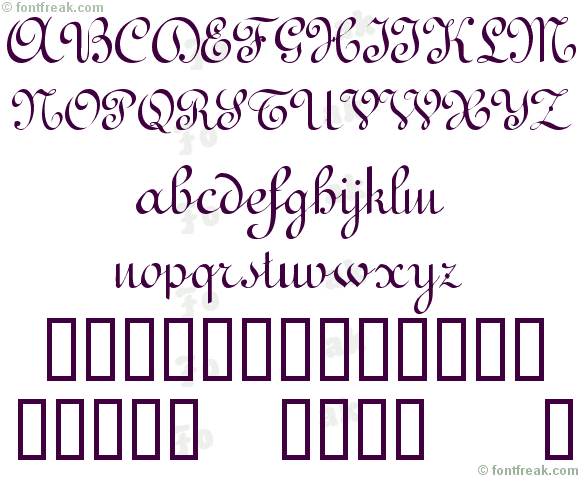
About Terpsichore
The Terpsichore font, designed by The Scriptorium in 1994, embodies an elegant script style that beautifully captures a sense of movement and grace. This decorative font features flowing, cursive-like strokes that evoke a sense of artistry and sophistication. With its moderate stroke weight and subtle contrast, Terpsichore balances readability with an artistic flair, making it a versatile choice for various design applications. The fluid lines and graceful curves create an inviting aesthetic, while the generous spacing between characters ensures clarity, even in longer texts.
This font is particularly well-suited for wedding invitations, where its romantic flair can set the perfect tone for a special day. Additionally, it shines in the creation of artistic posters, where the unique visual style can draw attention and create a lasting impression. Terpsichore is also an excellent choice for restaurant menus, especially for establishments focused on fine dining, as it adds a touch of elegance that complements gourmet offerings. Graphic designers and content creators will find it useful for branding projects, where the distinctive character of the font can help establish a memorable identity.
What sets the Terpsichore font apart is its ability to convey both elegance and creativity, making it an essential addition to any designer's toolkit. With its artistic appeal and versatile applications, the Terpsichore font free download is an opportunity to enhance your creative projects with a unique typographic voice.